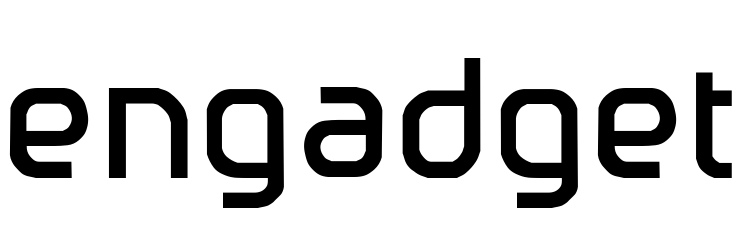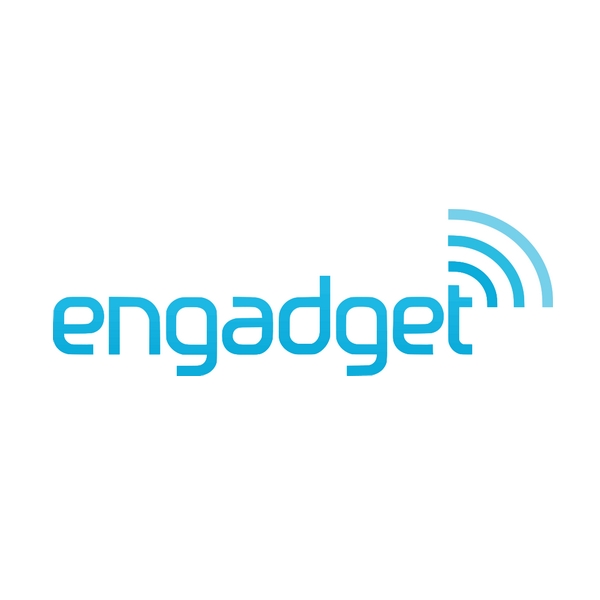
Engadget Font
John Stracke designed the Engadget font to resemble the lettering in the Engadget logotype, which includes a comprehensive set of characters. The font can be downloaded at no cost from the Fonts Used Section.